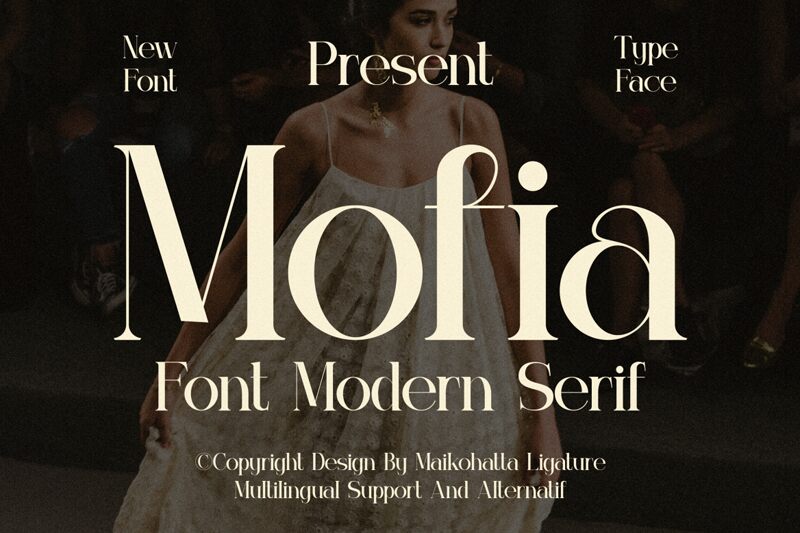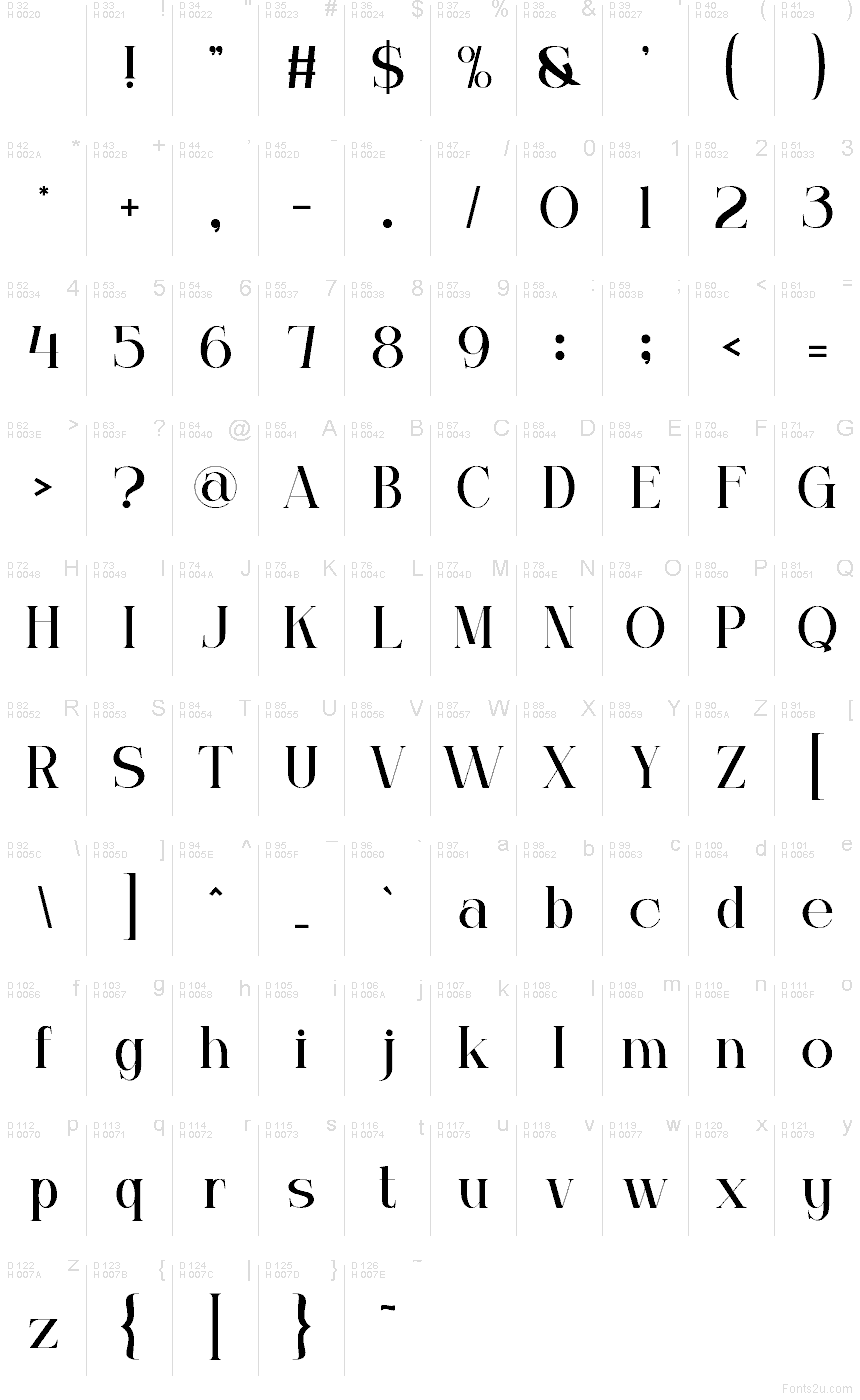
Mofia
Mofia font by Gilang Ternadho of Maikohatta is a free serif typeface with striking drama in every curve and cut. Ultra-bold verticals, hairline thins, and razor-sharp serifs create a feeling of polished tension, like ink pulled tight across the page. The rounded bowls feel lush and generous, while the precise, blade-like details keep everything looking tailored and modern rather than nostalgic.
Using Mofia, titles gain a luxurious, editorial presence that instantly looks like it belongs on the cover of a magazine. This free font shines on fashion branding, perfume packaging, book covers, posters, social media graphics, and sophisticated logos. Set it large to show off the contrast, and pair Mofia with a clean geometric sans in small sizes to keep layouts readable and chic.